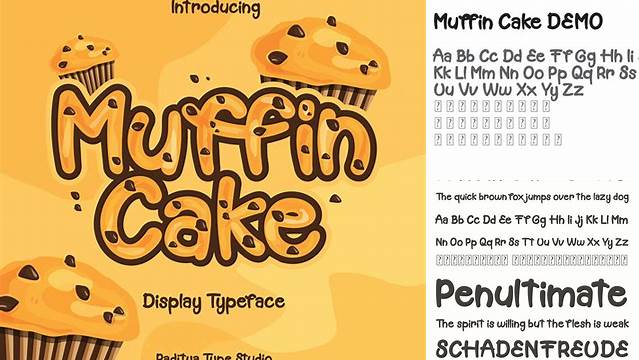
Hey guys! Looking to add a sweet touch to your designs? You've landed in the right place! We're diving deep into the world of the muffin cake regular font and how you can download it for free. This font is perfect for everything from bakery branding to cute invitations. Let's get started!
1. What is Muffin Cake Regular Font?
So, what exactly is the muffin cake regular font? Think of it as a typeface that embodies the warmth and delight of freshly baked goods. It typically features rounded edges, playful curves, and a friendly, approachable vibe. This makes it ideal for projects where you want to convey a sense of fun, comfort, and deliciousness. Whether you’re designing a logo for a bakery, creating social media graphics for a café, or even just sprucing up a birthday invitation, this font can add that perfect touch of sweetness. The muffin cake regular font is often characterized by its readability and versatility, making it suitable for both headlines and body text. Its unique personality can help your designs stand out while maintaining a professional and polished look. Many designers also appreciate the way this font can evoke a feeling of nostalgia and home-baked goodness, making it a great choice for projects that aim to connect with audiences on an emotional level. Plus, the availability of a free download makes it even more appealing for those looking to enhance their creative toolkit without breaking the bank.
2. Key Features of Muffin Cake Regular Font
The muffin cake regular font boasts several key features that make it a standout choice for designers and creatives alike. First and foremost, its round and playful design immediately captures attention, making it perfect for projects that need a touch of whimsy. The font often includes a variety of weights and styles, offering flexibility for different applications. You might find versions that range from light and airy to bold and substantial, allowing you to adapt the font to various design needs. Another significant feature is its legibility. Despite its unique character, the muffin cake regular font remains highly readable, even in smaller sizes. This makes it suitable for body text as well as headlines. The font also typically includes a full set of characters, including uppercase and lowercase letters, numbers, punctuation, and sometimes even special glyphs or ligatures. This comprehensive character set ensures that you have everything you need to create complete and polished designs. Furthermore, many versions of the muffin cake regular font are designed with scalability in mind, meaning they look great whether they’re used in print or on digital screens. The smooth lines and well-defined shapes prevent the font from becoming pixelated or blurry, even at larger sizes. And, of course, the fact that this font is often available for free download is a major selling point. It allows designers to experiment and incorporate a high-quality typeface into their projects without incurring any costs.
3. Where to Use Muffin Cake Regular Font
Thinking about where you can actually use the muffin cake regular font? The possibilities are pretty vast! This font is a fantastic choice for anything related to the food industry, especially bakeries, cafes, and dessert shops. Imagine using it for your bakery’s logo, menu design, or even on your packaging – it instantly adds a touch of sweetness and charm. But it’s not just limited to food-related businesses. The playful and friendly nature of the muffin cake regular font makes it a great fit for children’s books, birthday invitations, and party decorations. Think about how cute it would look on a banner or a thank-you card! It also works well for online graphics, such as social media posts and website headers, where you want to create a welcoming and approachable vibe. If you’re working on a project that needs a bit of whimsy and fun, this font is definitely worth considering. Beyond that, the muffin cake regular font can be used in educational materials, craft projects, and even personal stationery. Its versatility makes it a valuable addition to any designer's toolkit. Whether you’re creating a professional branding package or a personal greeting card, this font can help you achieve a unique and memorable look. So, next time you’re brainstorming ideas for a design project, remember the muffin cake regular font – it might just be the perfect ingredient you need!